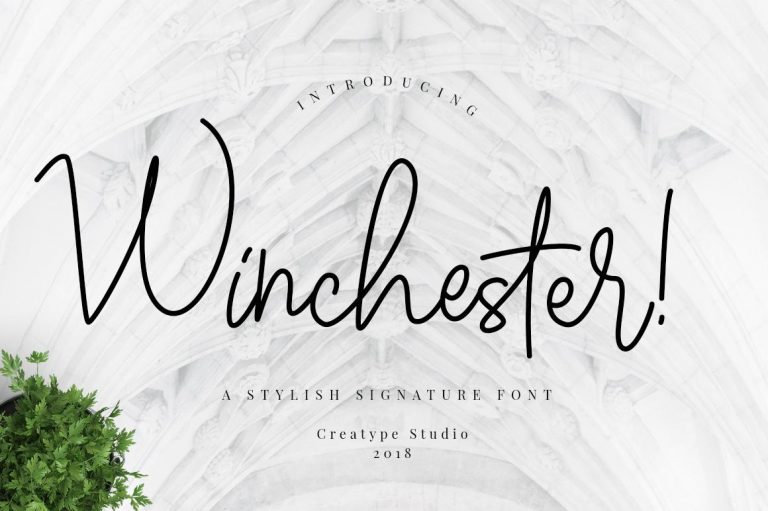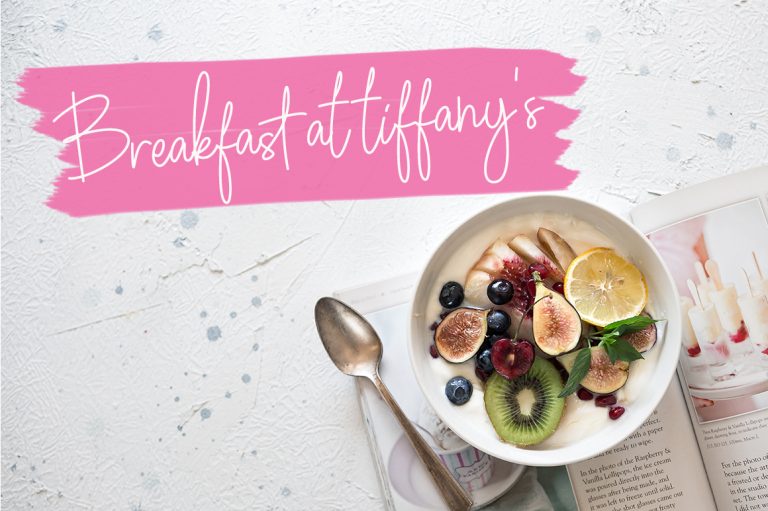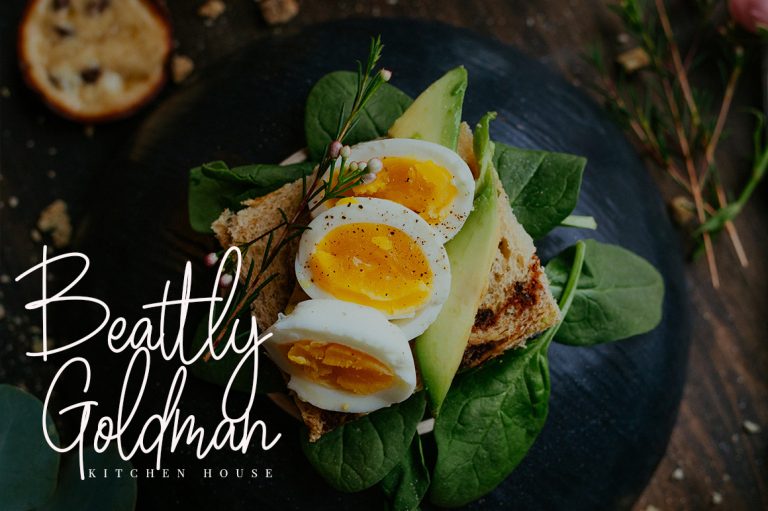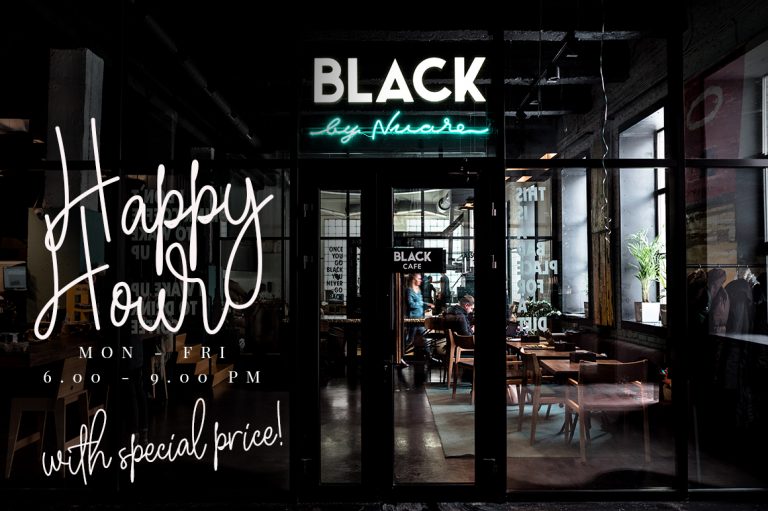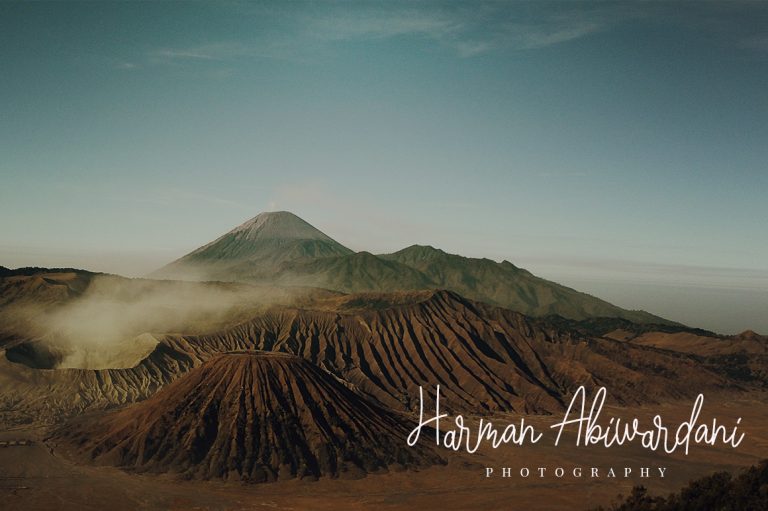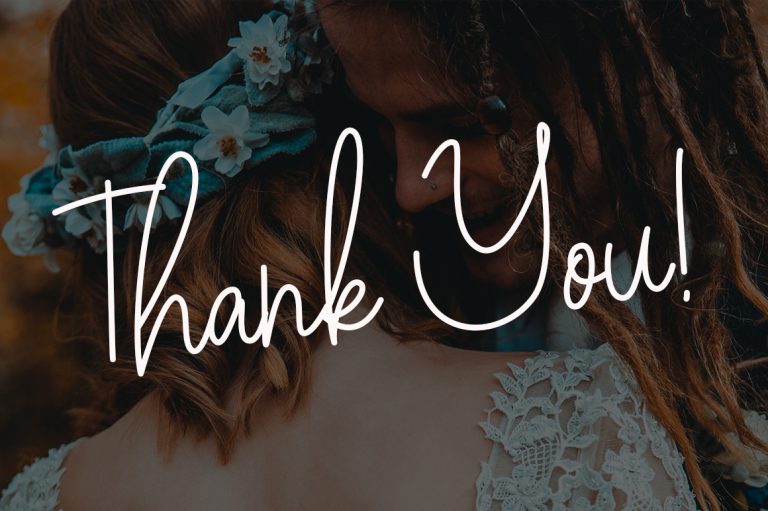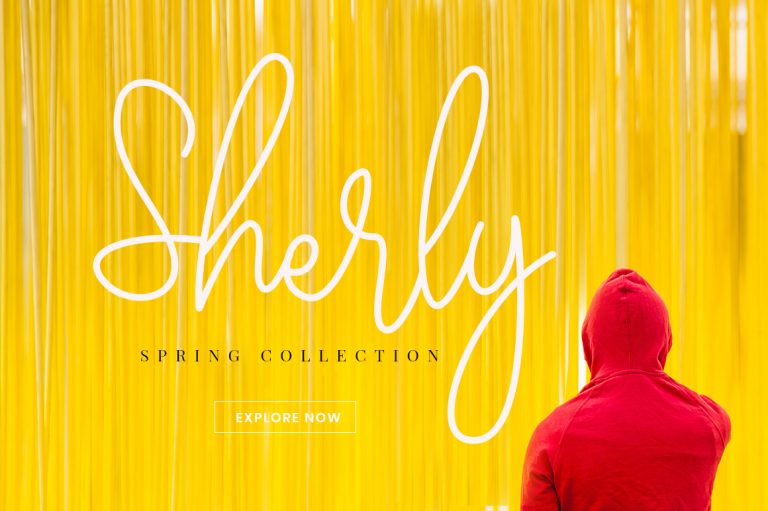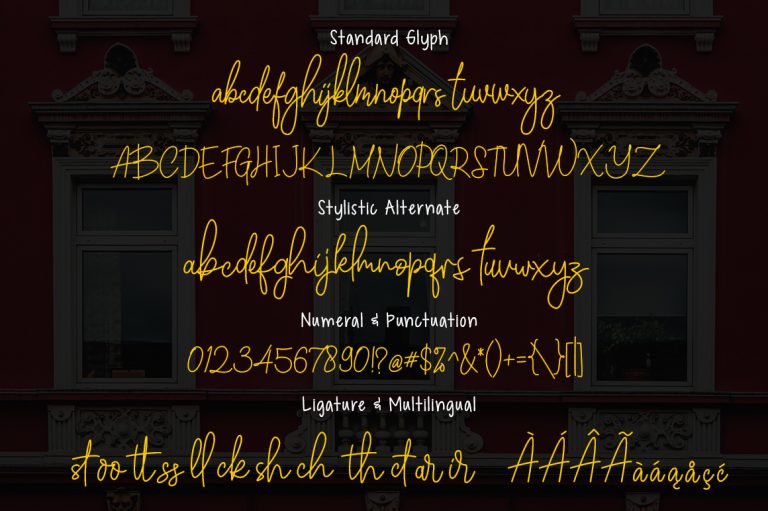
Introducing – Winchester signature script font which stylish natural handwritten font with beautiful curve in every single corner.
Winchester is perfect for photography, watermark, social media posts, advertisements, logos & branding, invitation, product designs, label, stationery, wedding designs, product packaging, special events or anything that need handwriting taste.
- More than 240 of glyphs
- Ton of glyphs (include Uppercase, Lowercase, Numerals & Punctuations, Ligature, Swashes)
Winchester Signature Script